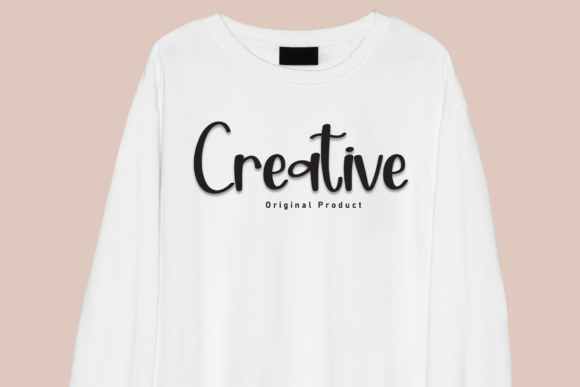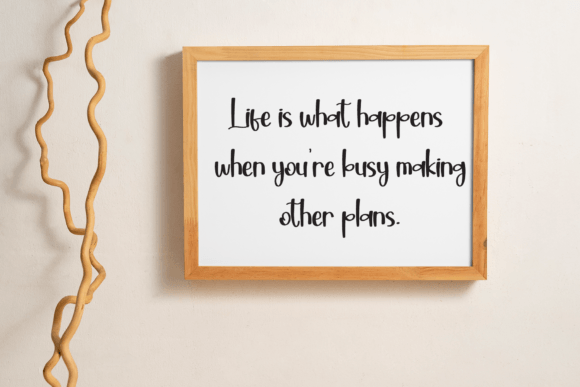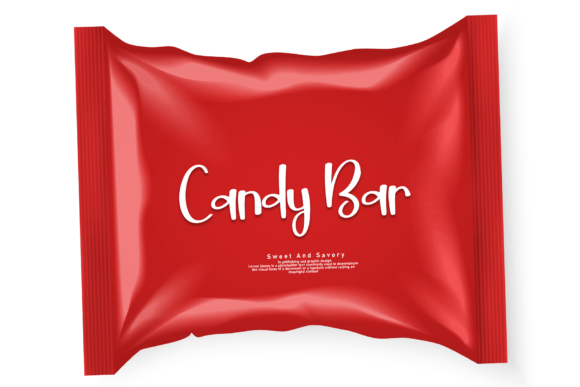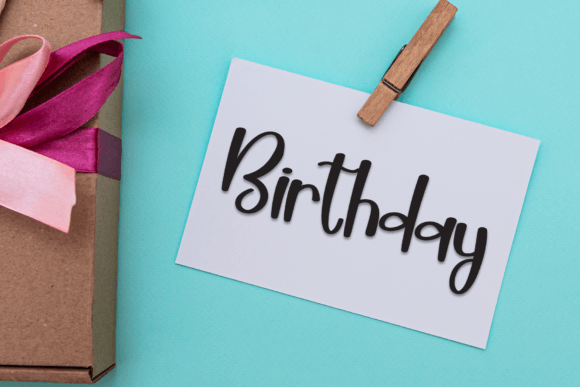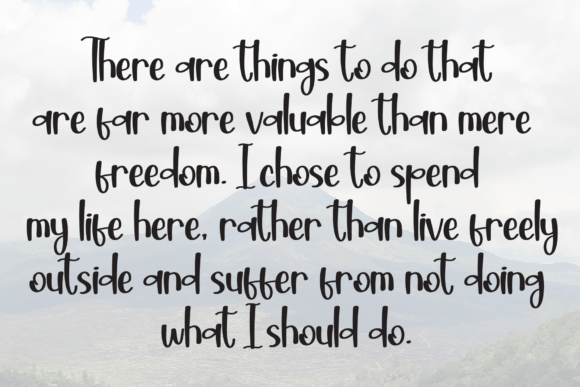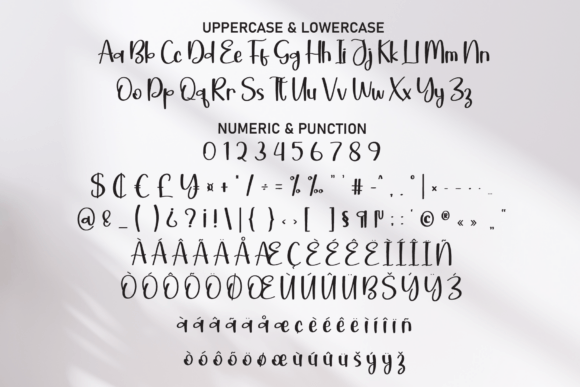
The Perfect Script for Your Next Design Project
Have you ever stared at a blank canvas, waiting for inspiration to strike? For designers, those moments of creative block are all too familiar. But what if the right font could spark the perfect idea? Meet Christian Font, a bold handwritten script that’s sure to warm up your design game.
This friendly font is designed to add a personal touch to your projects. With its thick strokes and inviting feel, Christian Font is perfect for quotes, invitations, and more. Its strong presence makes it a valuable tool for designers looking to create memorable and engaging designs. By incorporating Christian Font into your next project, you’ll be able to add a unique touch that sets your work apart from the rest.
Christian Font Key Features
- Font Family: Christian Font is a unique, custom-designed font family.
- Character Set: Supports a wide range of characters, including Latin, Cyrillic, and Greek alphabets, as well as punctuation and symbols.
- Unique Characteristics: Features a distinctive, elegant design with subtle flair and rounded edges, making it suitable for use in creative and formal applications.
Christian Font Review
I have to say, I was a bit skeptical about the Christian Font at first. But, after taking a closer look, I think I have a pretty solid understanding of its strengths and weaknesses.
- Unique and elegant feel: The Christian Font has a distinctive, elegant feel that sets it apart from more common fonts.
- Good for headings and titles: I think this font really shines in headings and titles, where it can add a touch of sophistication and class.
- Works well with serif and sans-serif fonts: Christian Font can be used in conjunction with both serif and sans-serif fonts, making it a versatile choice for designers.
- Limited legibility: While Christian Font is great for headings and titles, its legibility can suffer at smaller font sizes or when used for large blocks of text.
- Might be too ornate: Some users might find the font too ornate or busy, which could detract from the overall design.
- Not suitable for all audiences: Christian Font may not be the best choice for designs that require a more straightforward or modern aesthetic.
Overall, I think Christian Font is a solid choice for designers who want to add a touch of elegance and sophistication to their work. However, it’s essential to use it judiciously and consider the limitations mentioned above.
Getting the Most Out of Christian Font
To get the most out of Christian Font, use it in conjunction with other design elements that complement its unique style. Experiment with different font sizes, colors, and styles to create a visually appealing design. Consider using Christian Font for headings or titles to add a touch of elegance and sophistication.
Christian Font is commonly used in church graphics, wedding invitations, and other designs that require a touch of elegance and sophistication. It’s also a great choice for designers who want to add a unique and distinctive touch to their designs.